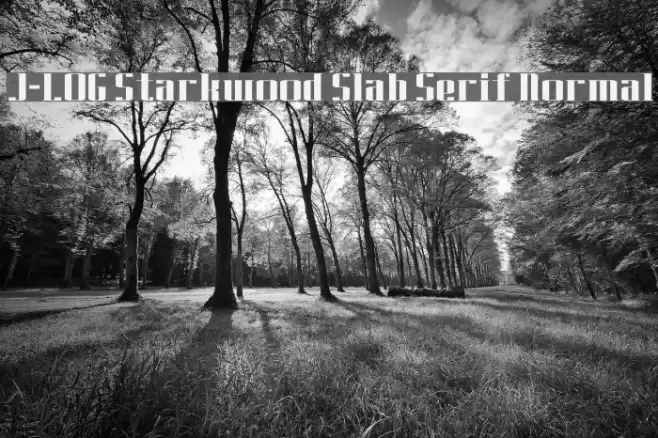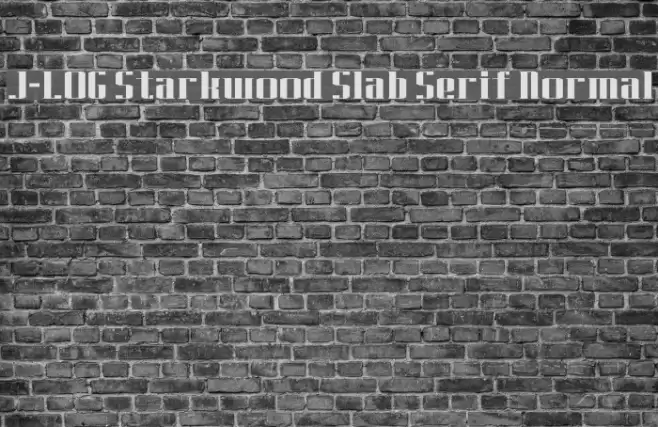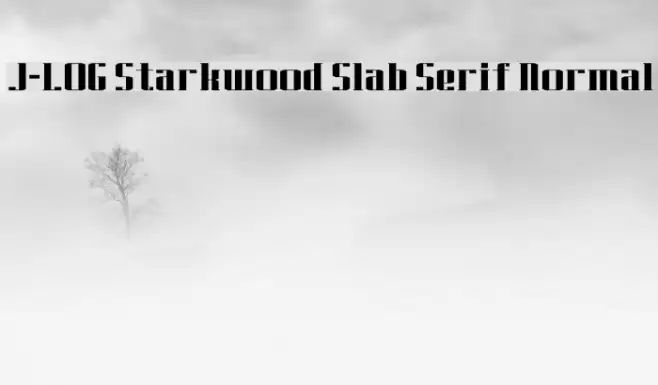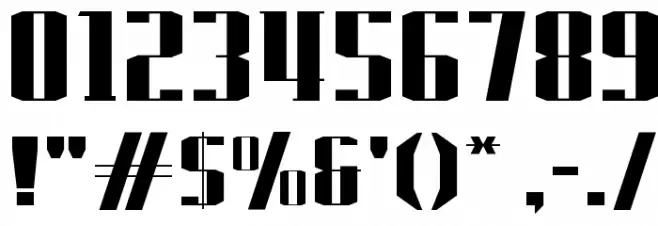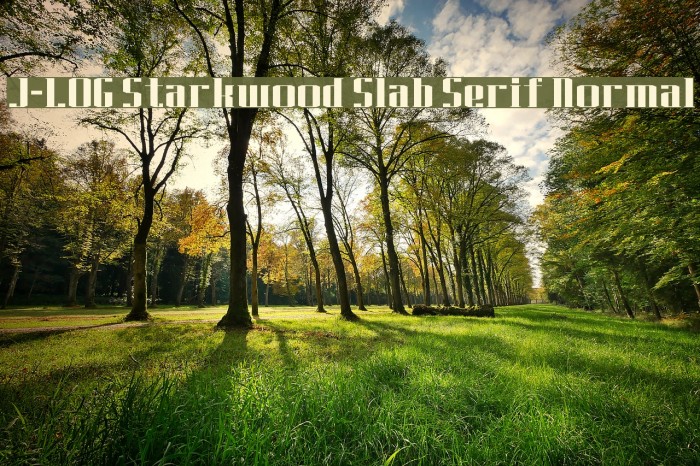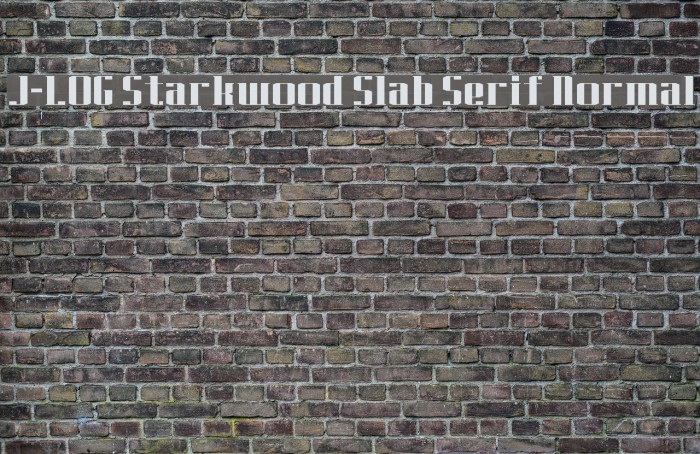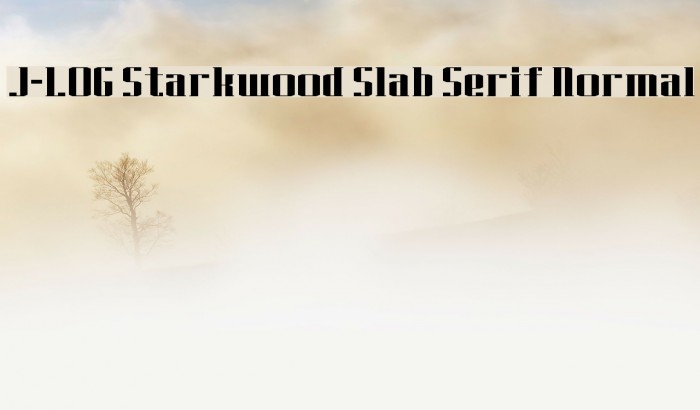
J-LOG Starkwood Slab Serif Normal Font
J-LOG Starkwood Slab Serif Normal Description
This font features a bold and striking slab serif design, characterized by its thick, block-like serifs and strong vertical lines. The uppercase letters are tall and commanding, while the lowercase letters maintain a consistent weight and structure, providing a cohesive look. The numerals are equally robust, ensuring clarity and impact. Special characters are designed with the same boldness, making them stand out effectively. The overall appearance is modern yet retains a classic touch, suitable for making a strong visual statement.
A bold slab serif font with strong vertical lines and block-like serifs from Uncategorized fonts.
- Proposed Projects: Ideal for branding, poster design, headlines, and any project requiring a strong, impactful typeface.